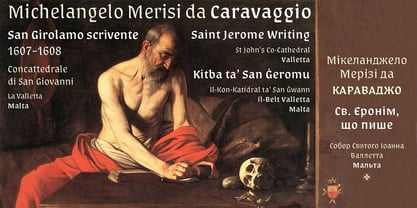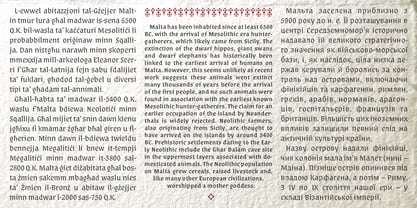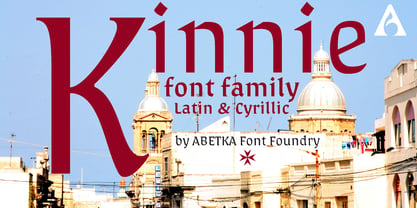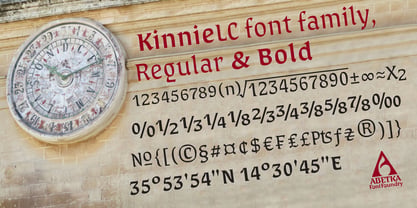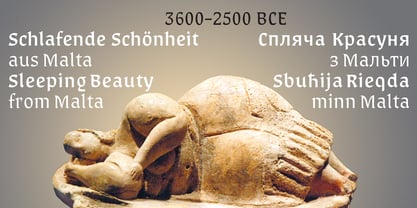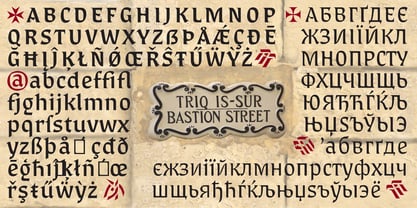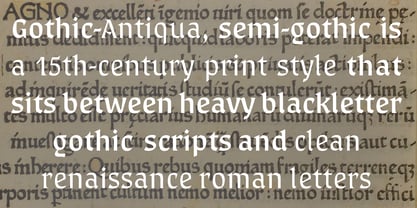
KinnieLC
by Abetka Font Foundry
The KinnieLC Font Family was designed by Viktor Kharyk and published by Abetka Font Foundry. KinnieLC contains 2 styles and family package options. More about this family
The KinnieLC type family is inspired by Malta’s millennia-old history and culture. It represents a modern reinterpretation of the expressive yet largely forgotten Gothic-Antiqua or semi-gothic style. This style blends the density and rhythm of heavy blackletter gothic scripts with the rounded forms and elegance of the Renaissance roman letters; in our view, it successfully captures the complex, layered cultural heritage of Malta’s uniqueness, making the typeface versatile enough for a wide range of applications. It includes two weights and supports the European Latin and Cyrillic alphabets, along with several thematic graphic elements that complement its style.
The type family is named after a popular, exclusive Maltese beverage.